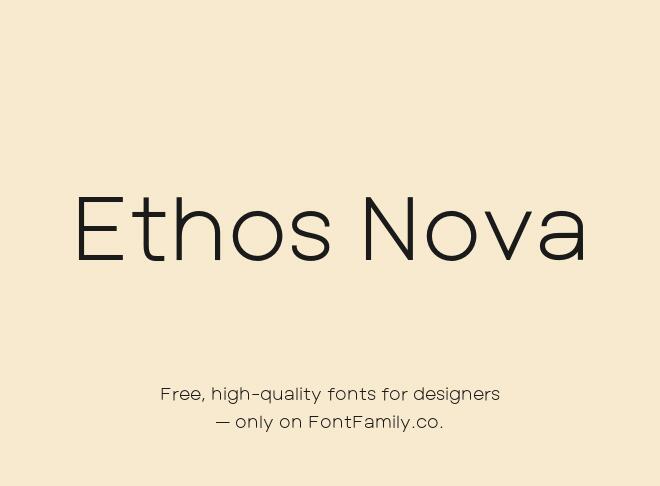
Ethos Nova Font
Ethos Nova Font is a modern and geometric typeface that exudes minimalism and sophistication. Crafted by the Creative Type Foundry, it was first released in 2021 and has quickly gained popularity among designers. Its clean lines and balanced proportions make it a perfect fit for both display and text use, particularly in branding, web design, and print materials. Ethos Nova Font stands out from comparable sans serif fonts due to its unique blend of simplicity and character, making it a versatile tool in any designer's toolkit. Its modern aesthetic is backed by an Open Font License, making it freely available for both personal and commercial projects. Choosing Ethos Nova Font means choosing a typeface that blends functionality with style, ensuring your designs always leave a lasting impression.